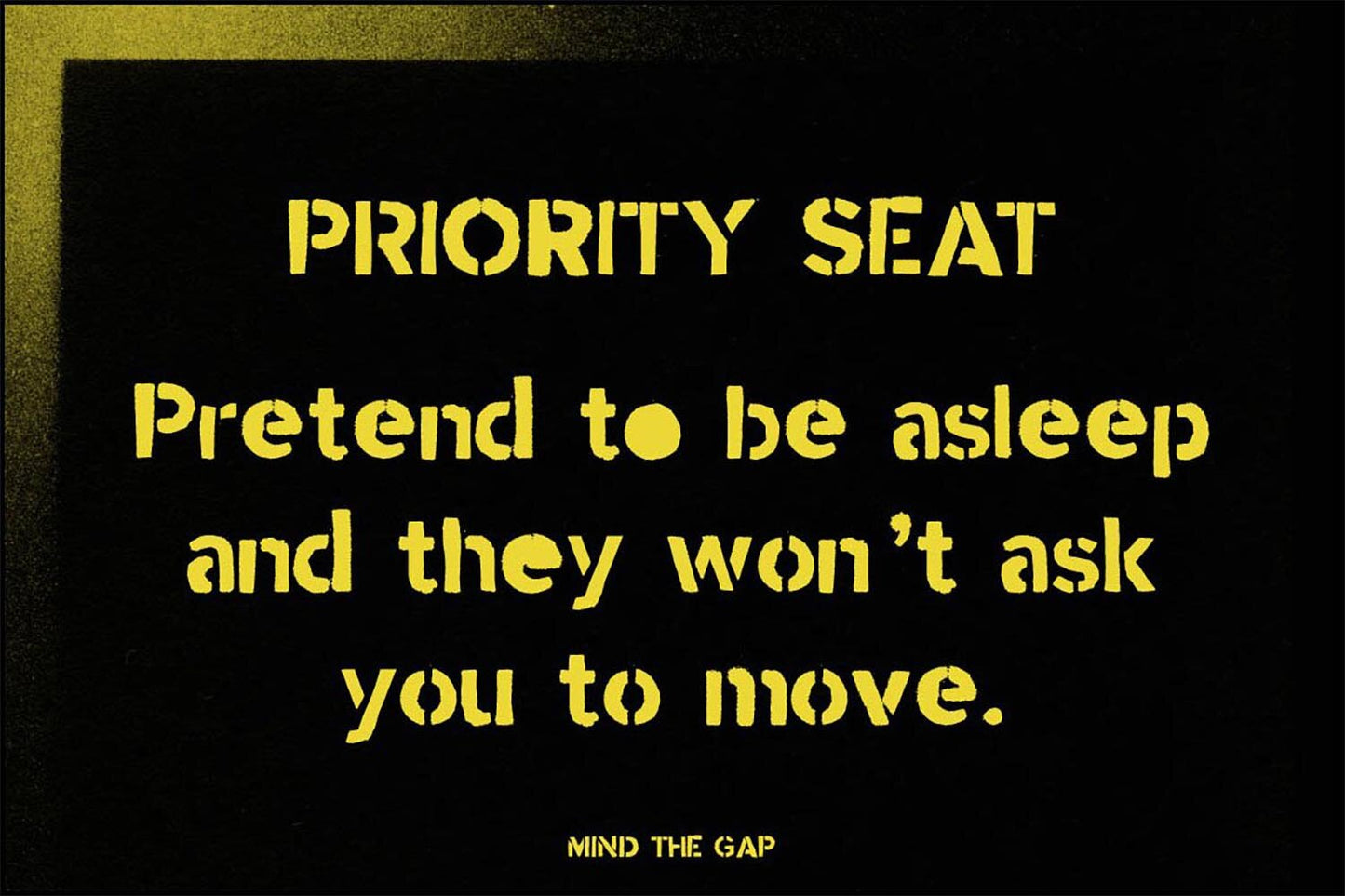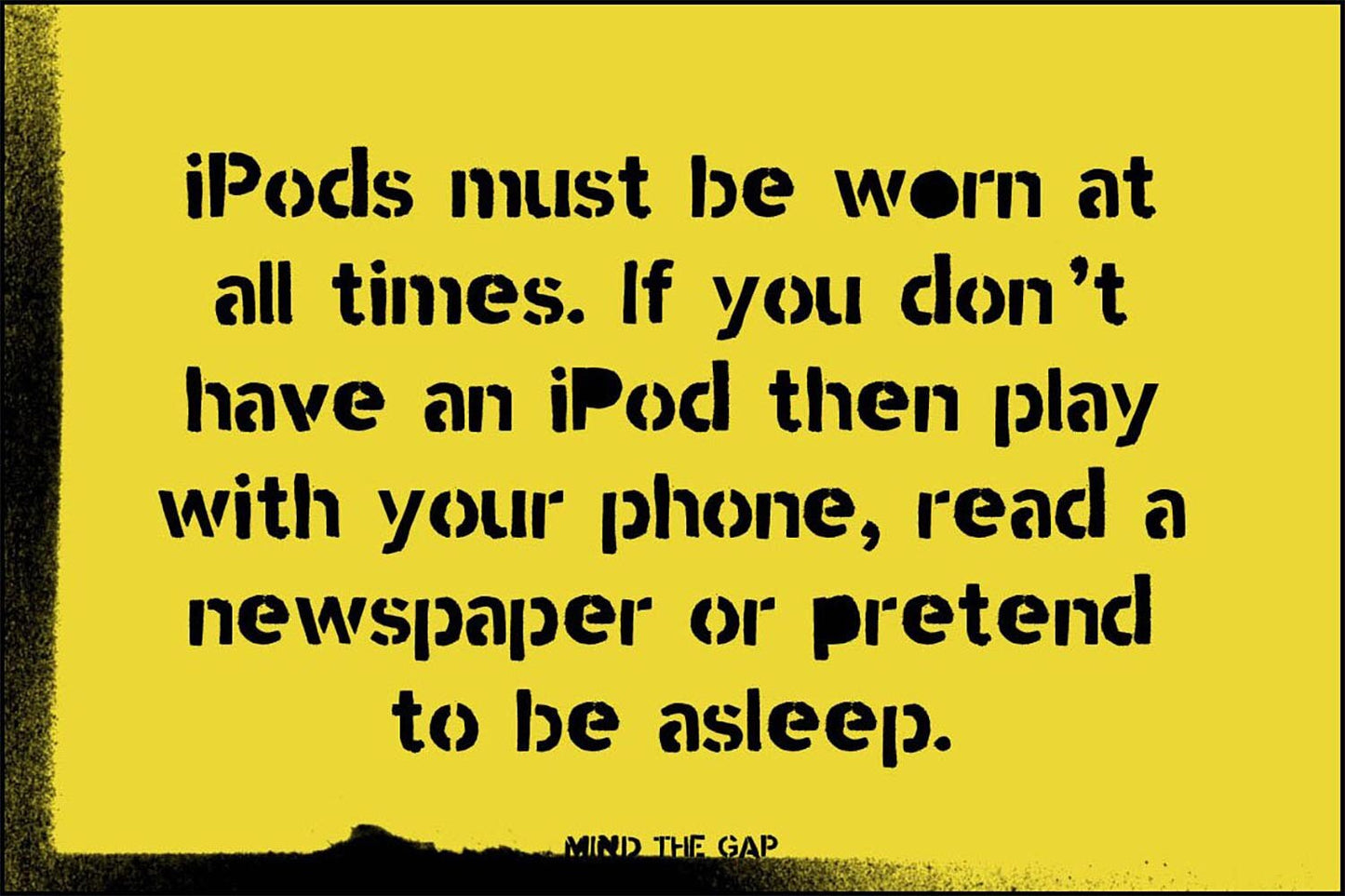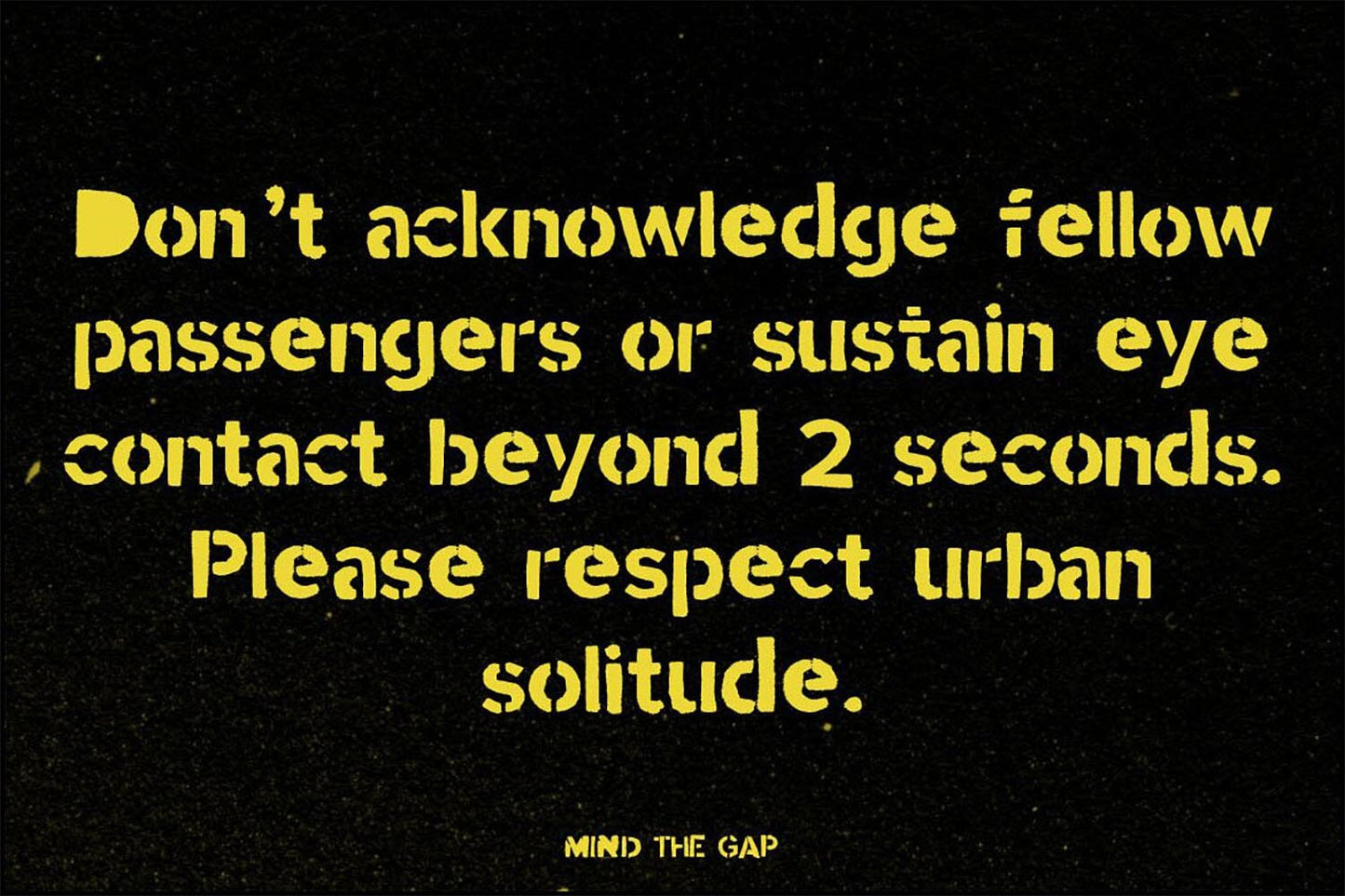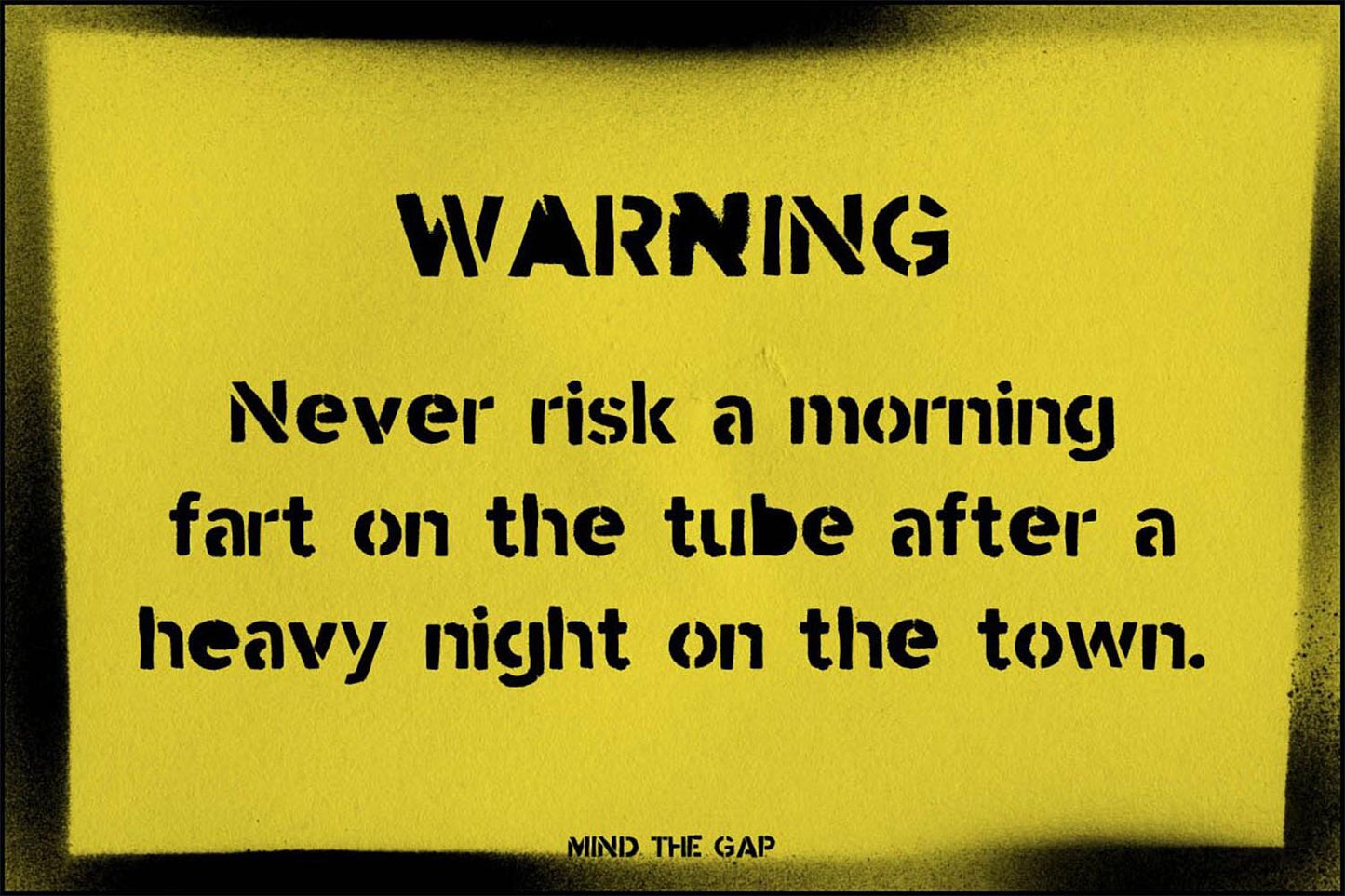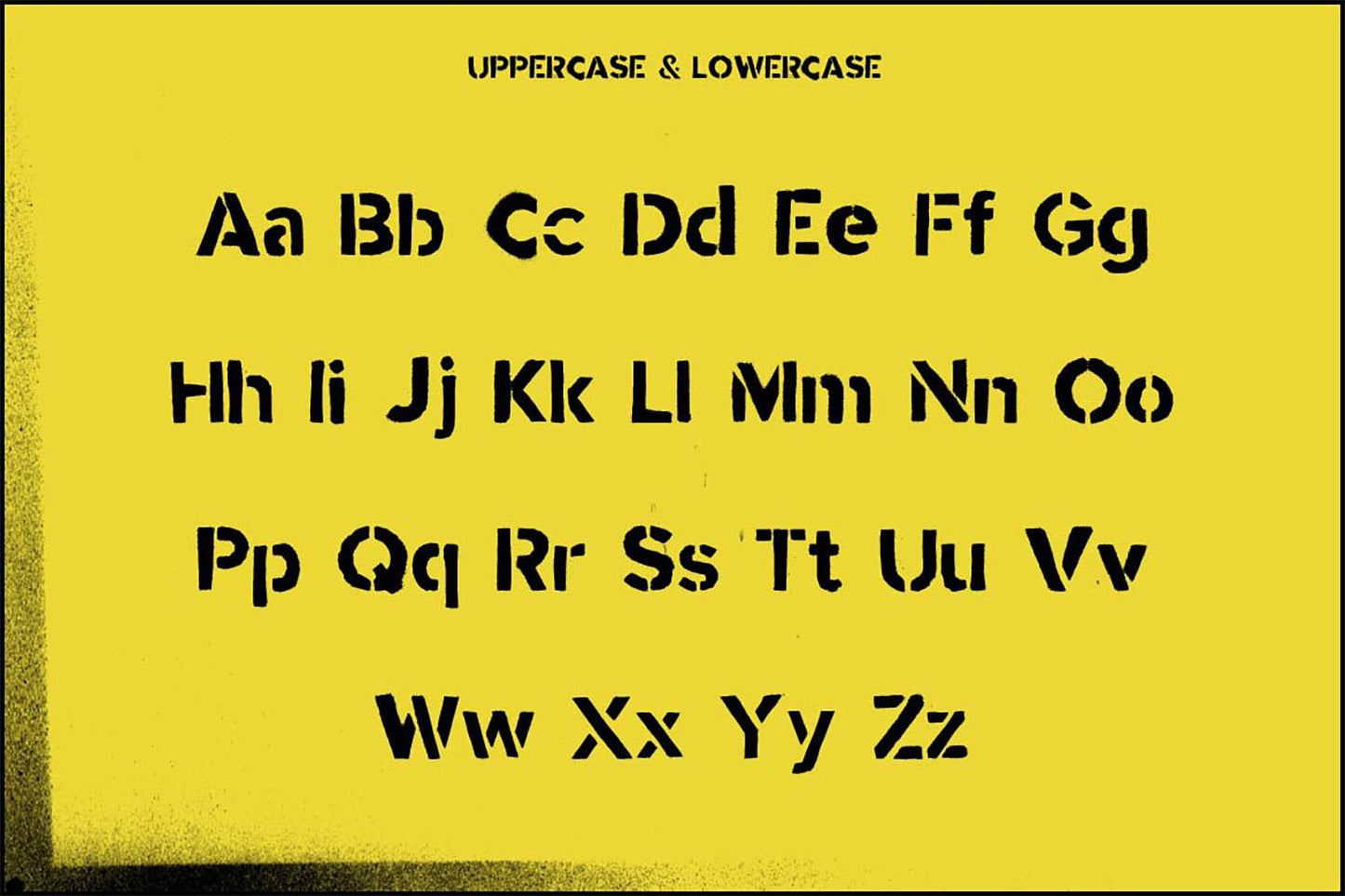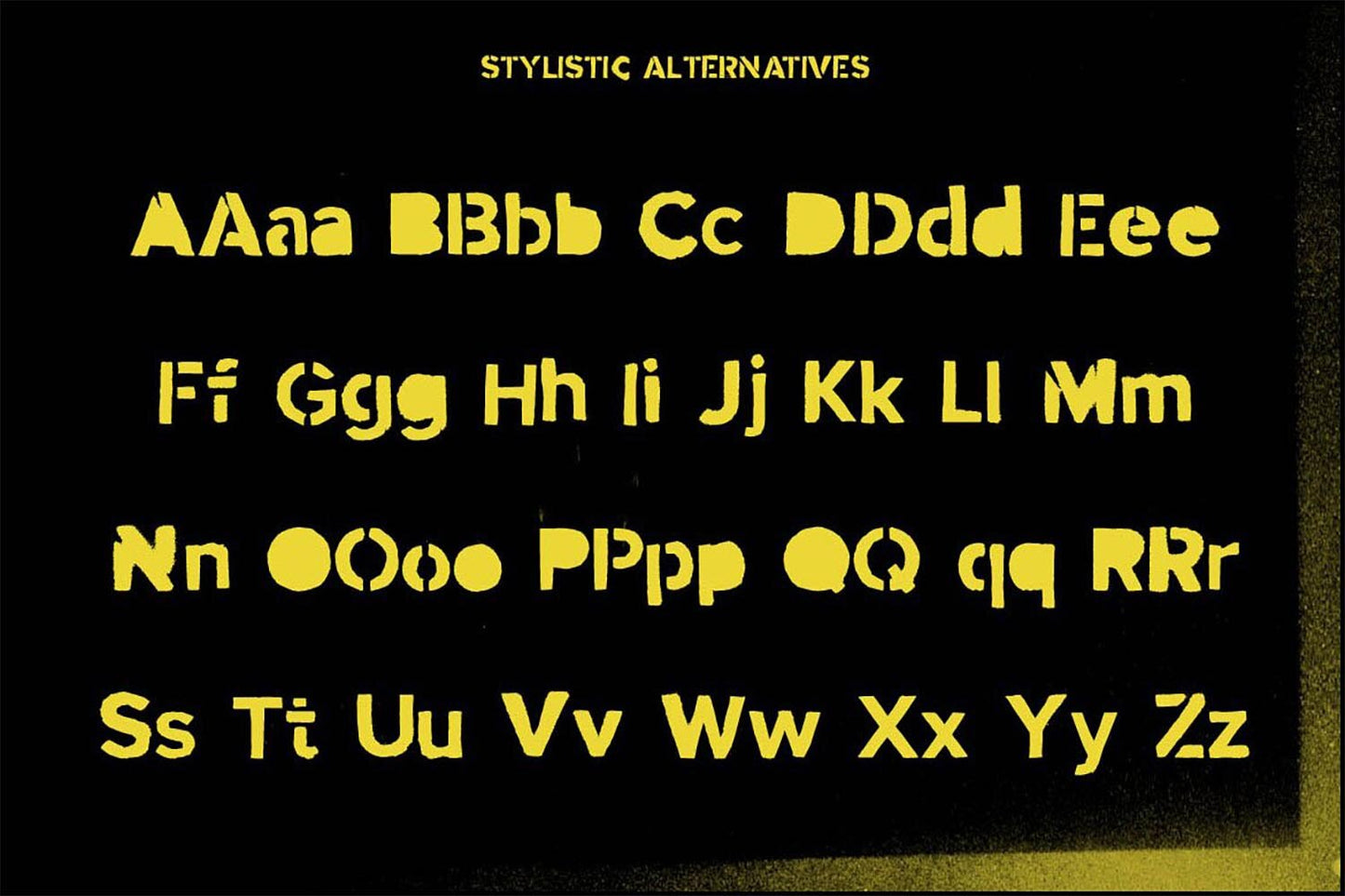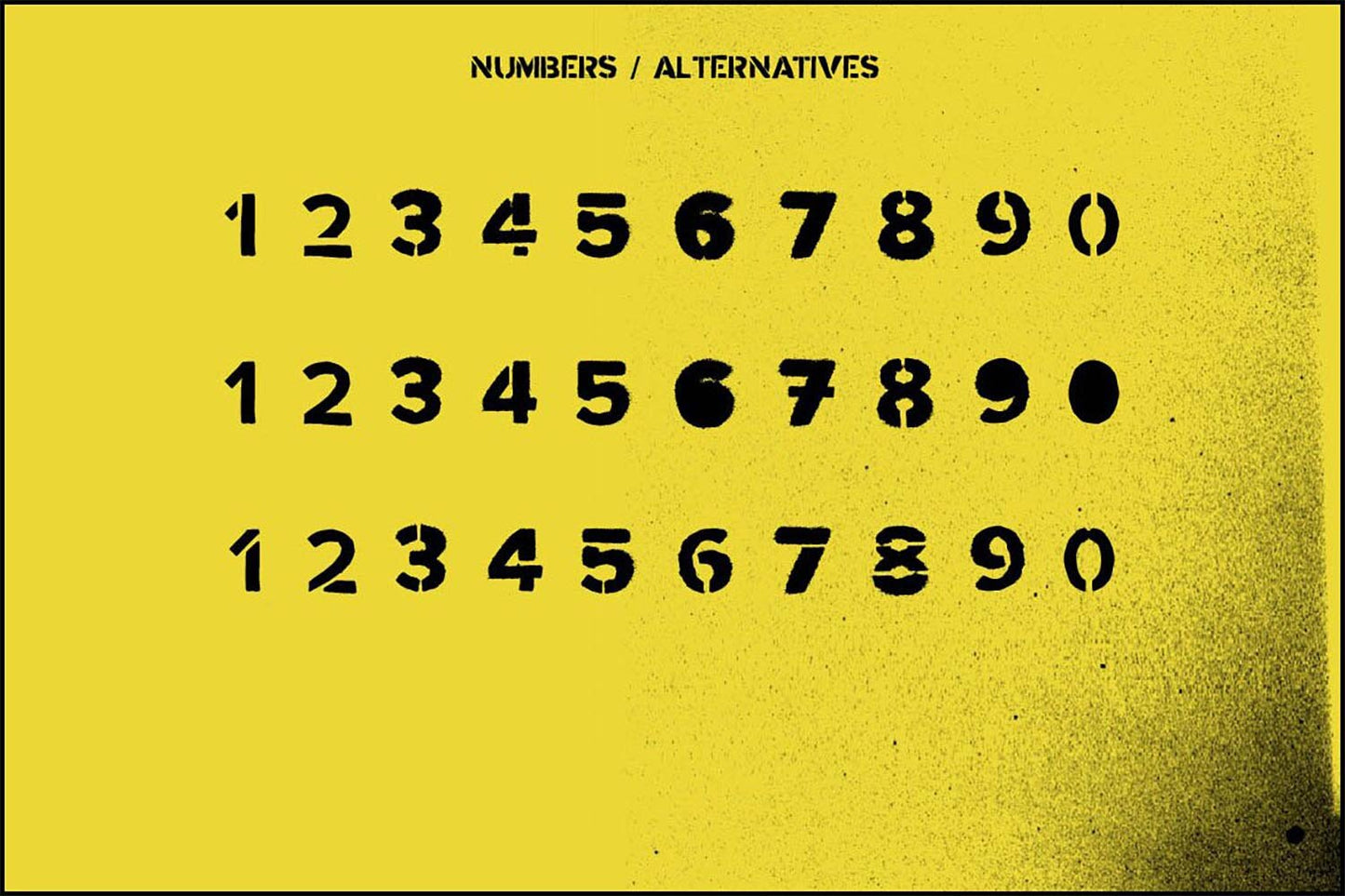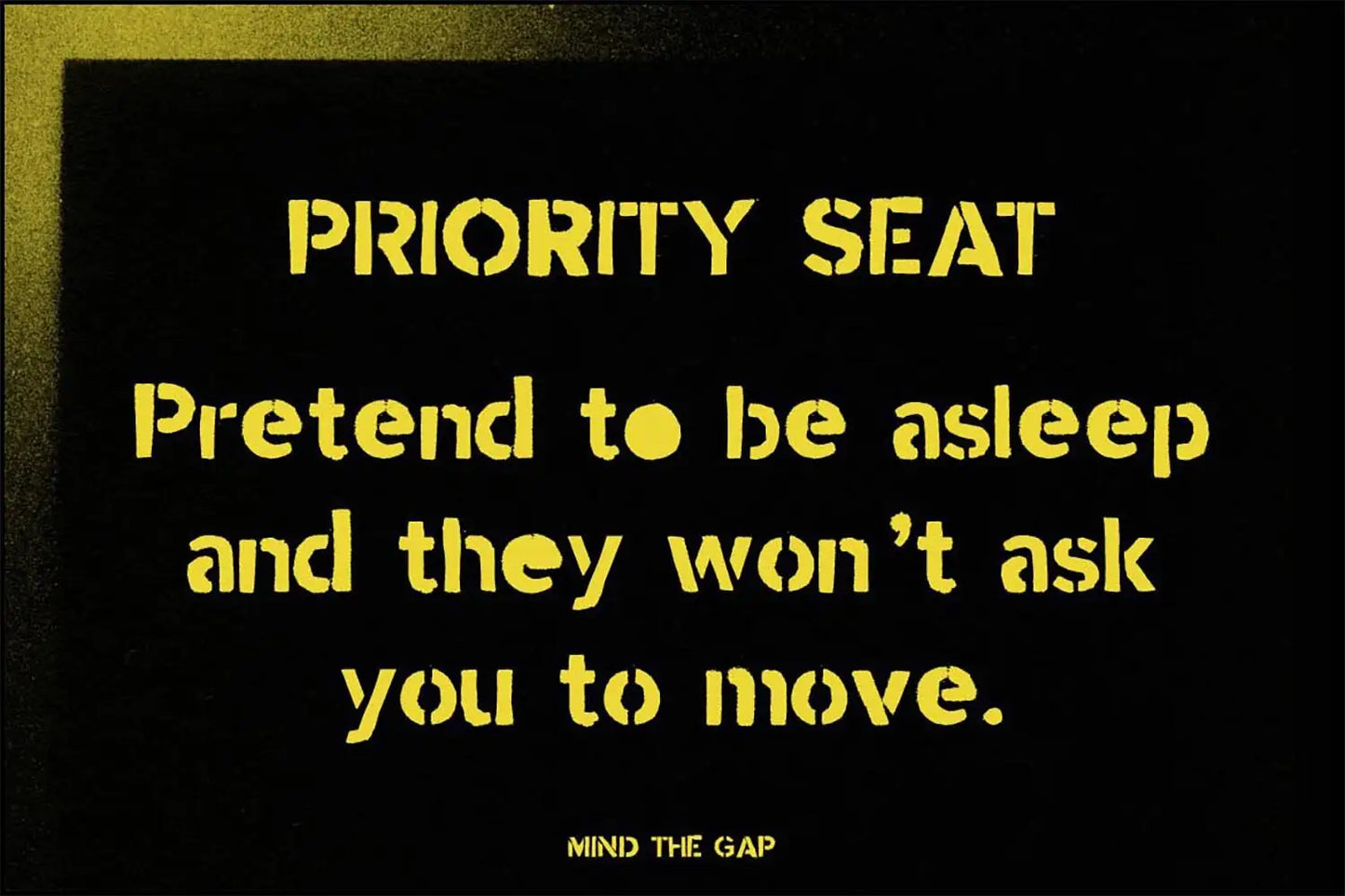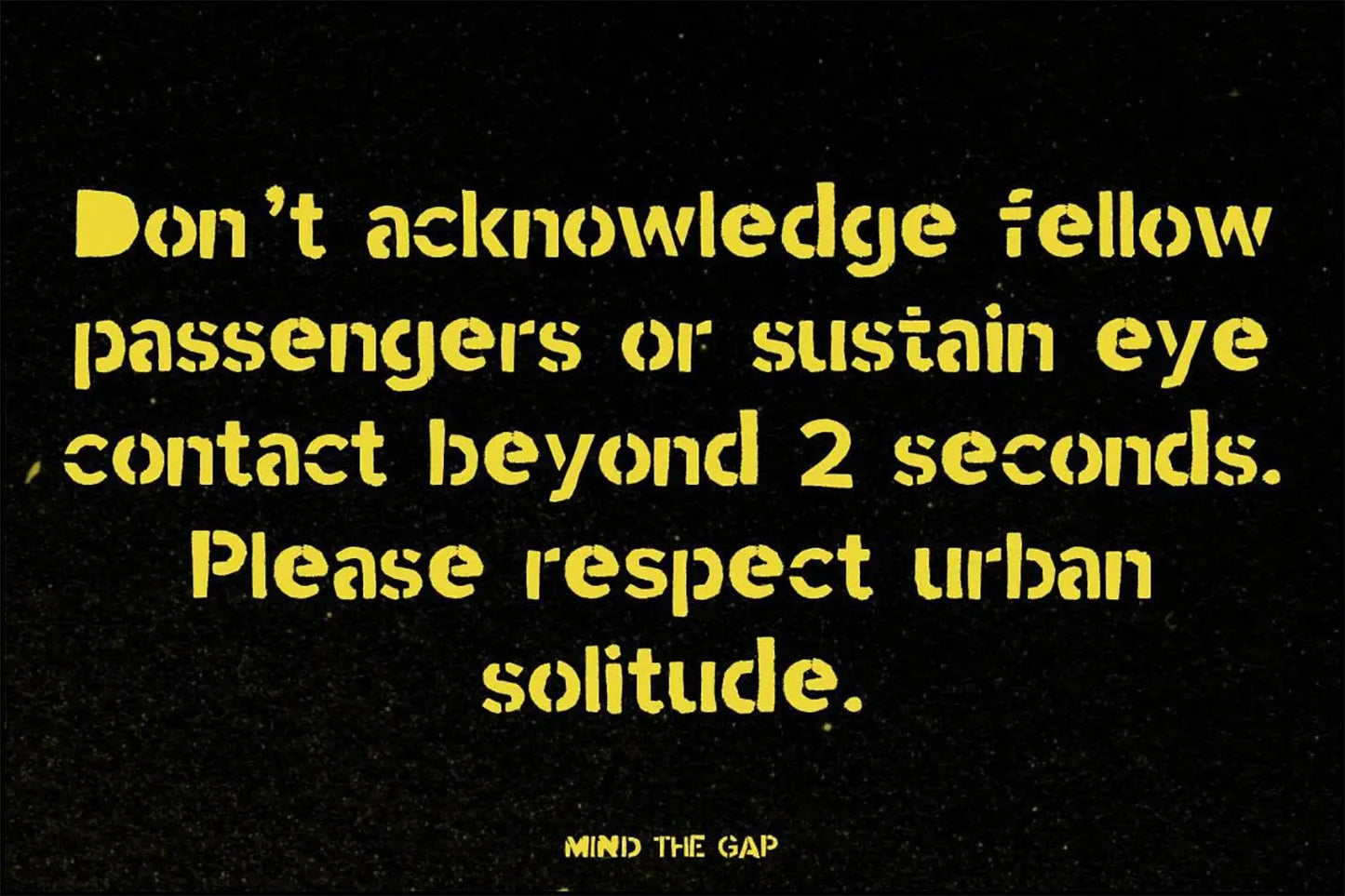
Mind the gap
About Mind the gap
Ah, the Mind the Gap font, it's a creation born from the love-hate relationship many of us Londoners have with our daily Tube commute.
Now, if you've ever ridden the Tube, you'll be familiar with that posh-sounding voice reminding you to Mind the gap. And if you look down at your feet, there it is again, Mind the gap. That's exactly why I've named this stencil font after it.
I crafted this font the old-fashioned way, cutting out letter stencils and giving them a bold coat of black spray paint. The result? An industrial, almost military vibe that's as genuine as it gets when it comes to stencil-cut fonts.
Stylistic Alternatives
It includes one stylistic alternative for uppercase and lowercase A-Z. Plus an additional stylistic alternative for A, B, D, O, P, Q, R and a, b, d, e, g, o, p, q, and three alternatives for numbers.
Includes:
• One weight
• Uppercase and lowercase
• Numbers, Punctuation & Symbols
• Stylistic sets
If Mind the Gap font were a celebrity
If the Mind the Gap font were a celebrity, it would be the no-nonsense, down-to-earth type, just like our beloved British actor, Michael Caine. This font embodies that distinct London charm and straightforwardness of the good man himself.
Designers: Simon Stratford